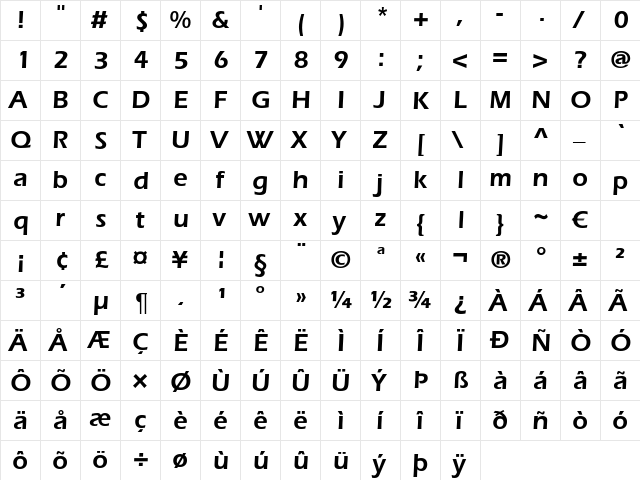
ErlangenDB Bold
Design Context for ErlangenDB Typeface
ErlangenDB offers clean, dependable letterforms without strong stylistic allegiance, making it a practical choice for designers who need flexibility. The heavy weight commands attention and anchors typographic hierarchies.
Pro Tip: Pair ErlangenDB with a font of contrasting weight or personality to build a more expressive typographic hierarchy.